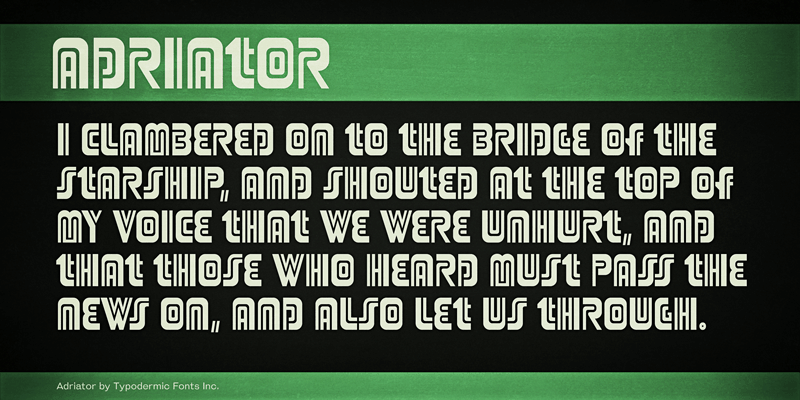
Inspired by an old radiator logo, Adriator is both glyphic and bizarre. This font includes a license that allows free commercial use: sometimes referred to as a desktop license. This allows you to install the font on a computer and use it to create posters, web graphics, game graphics, t-shirts, videos, signs, logos and more. Read the license agreement for details. If you'd like to embed this font in an app, ebook, on the web or anything that's not covered by the desktop license agreement, visit the link below. You'll find distributors who offer different types of licenses or you can contact me for help. http://typodermicfonts.com/adriator/ |